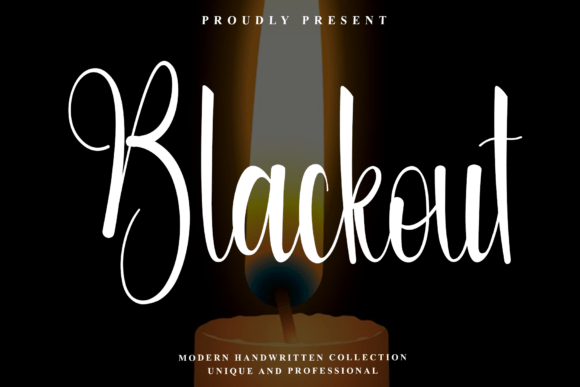
The Elusive Perfect Font: My Encounter with Blackout
I’ll never forget the frustration of working on a travel photography project, searching for a font that could capture the essence of adventure and freedom. My client wanted something that felt fresh, elegant, and outdoorsy, but not too casual. After hours of scrolling through font libraries, I stumbled upon Blackout – a “unique and professional” entry into the modern handwritten collection that would change the game.
First Impressions: A Breath of Fresh Air
Blackout’s tall, thin strokes with a subtle, airy slant immediately caught my attention. The refined aesthetic felt like a mountain breeze on a hot summer day – crisp, elegant, and refreshing. Its clean and approachable style made it an instant contender for travel photography, branding for outdoor gear, and sophisticated web design.
- ✨ Unique and professional look that stands out from the crowd
- ✅ Clean and approachable style perfect for various design applications
- 💫 Subtle, airy slant that adds a touch of elegance
- 📸 Excellent for travel photography and outdoor gear branding
- ⚠️ Limited availability of stylistic alternates, which might limit its versatility
- 🤔 Some users might find the font too slender for certain design applications
The Designer Behind Blackout: A Story of Inspiration
Blackout was designed by a team of typographers who sought to create a font that embodied the essence of clarity and elegance. Inspired by the clean lines and minimalist aesthetic of modern design, they crafted a font that would evoke a sense of freshness and sophistication. The result is a unique and professional font that has captured the hearts of designers and creatives alike.
| What is the best use case for Blackout? | Blackout is ideal for travel photography, branding for outdoor gear, and sophisticated web design. |
| Is Blackout a versatile font? | While Blackout has a unique and professional look, it might not be suitable for all design applications. However, its clean and approachable style makes it a great choice for various projects. |
| Does Blackout support OpenType features? | Yes, Blackout supports OpenType features, including ligatures, stylistic alternates, and glyphs. |